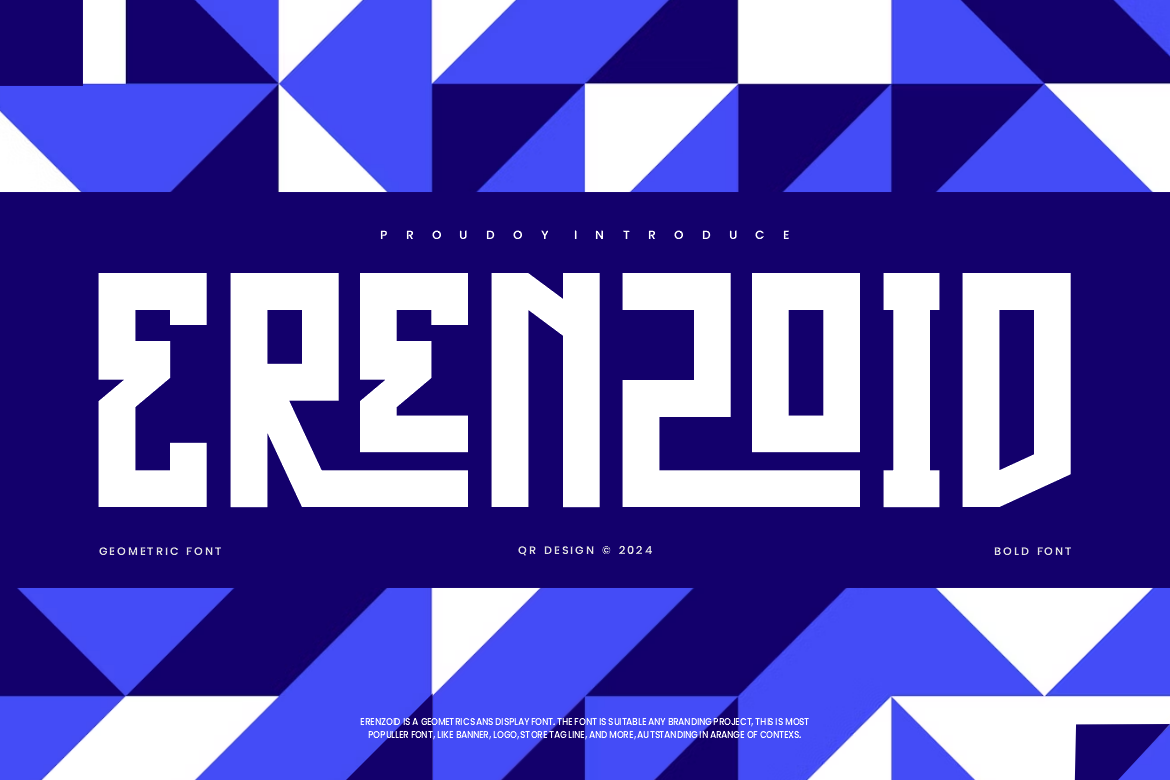
Erenzoid - Condensed Geometric Font
Erenzoid Font is a bold and authentic display font. The font is suitable for any branding project like poster, logo, sport, and many more. Outstanding in a wide range of contexts.